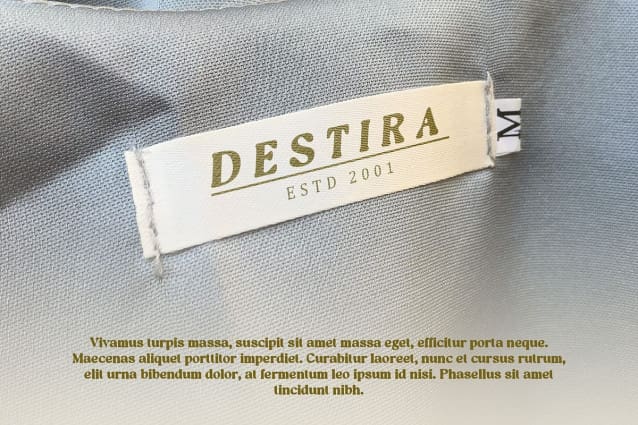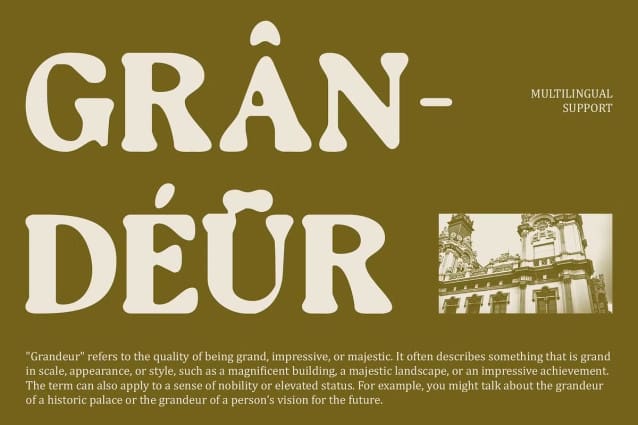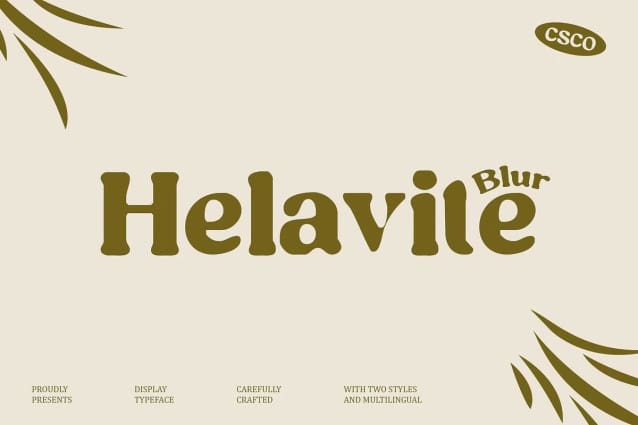
Helavite Blur Font
Helavite Blur Font is a modern serif font that combines bold elegance with a captivating blur effect. Its design merges powerful, sophisticated elements with an artistic touch, creating a unique and influential appearance.
Strong Impact with Refined Sophistication The bold serif form of Helavite Blur ensures a commanding presence and high readability. The serif details add a traditional and refined feel, balancing classic sophistication with contemporary strength.
Subtle Artistic Dimension The blur effect introduces a subtle yet mesmerizing visual dimension, offering a slightly blurred appearance that adds depth and intrigue. This artistic touch enhances the font’s visual appeal, making it stand out with a unique and captivating look.
Ideal for Premium and Influential Designs Helavite Blur is perfect for designs that demand a luxurious and impactful impression. Whether used for premium branding, promotional materials, or editorial design, this font combines classic aesthetics with a modern twist, making it a versatile choice for sophisticated and influential projects.
Sophisticated Modern Aesthetic With its blend of bold elegance and artistic flair, Helavite Blur provides a luxurious and visually engaging option for high-end design applications. It infuses traditional serif style with contemporary uniqueness, making it ideal for creating memorable and influential visual statements.